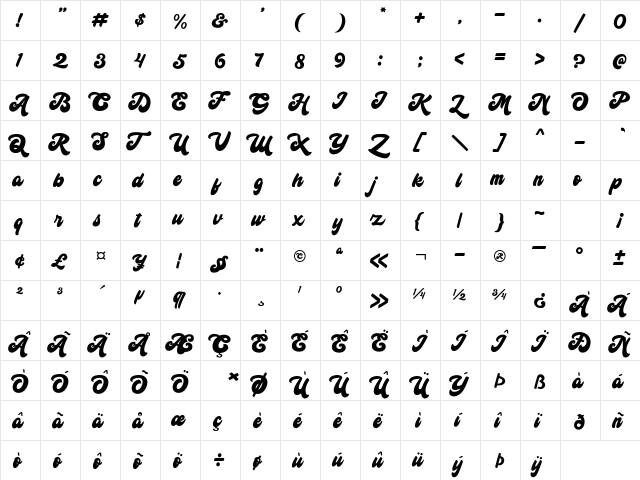
Hi Monday Regular
| Designer | Rudhi Sasmito |
Design Context for Hi Monday Typeface
Hi Monday is a composed and adaptable typeface that performs quietly and consistently across a wide range of design contexts.